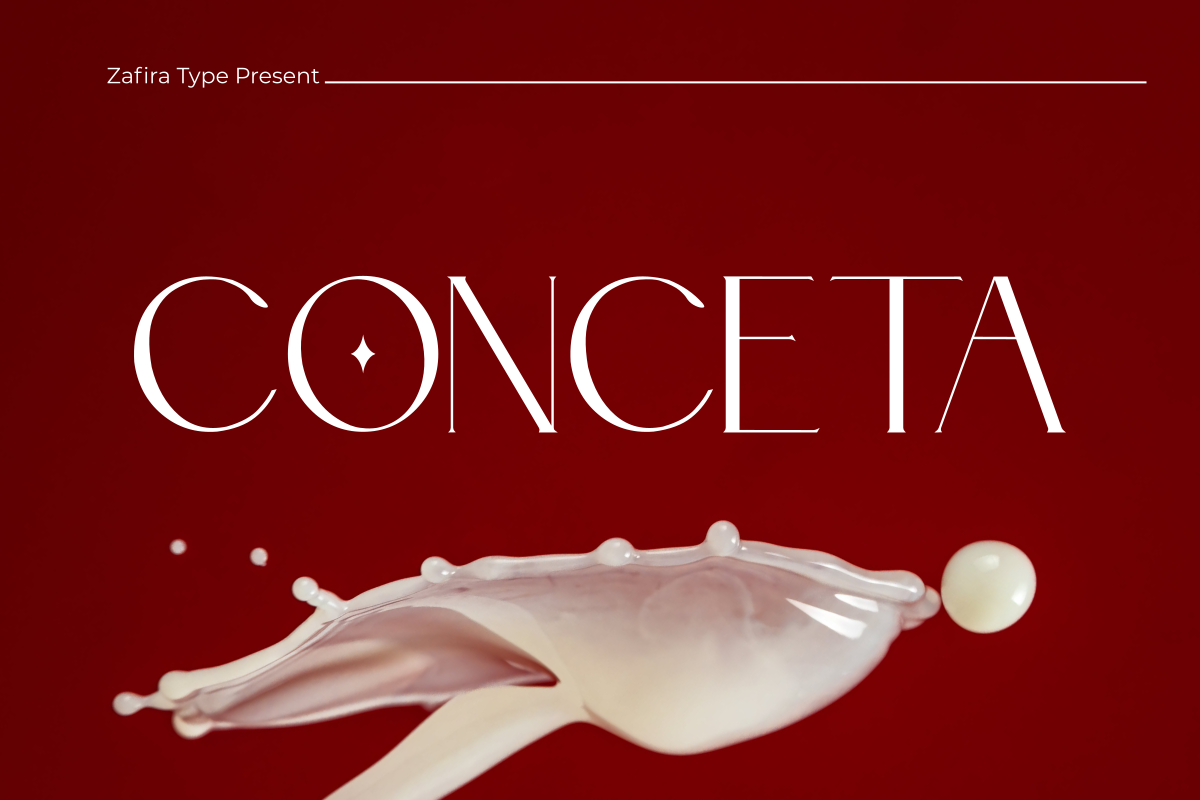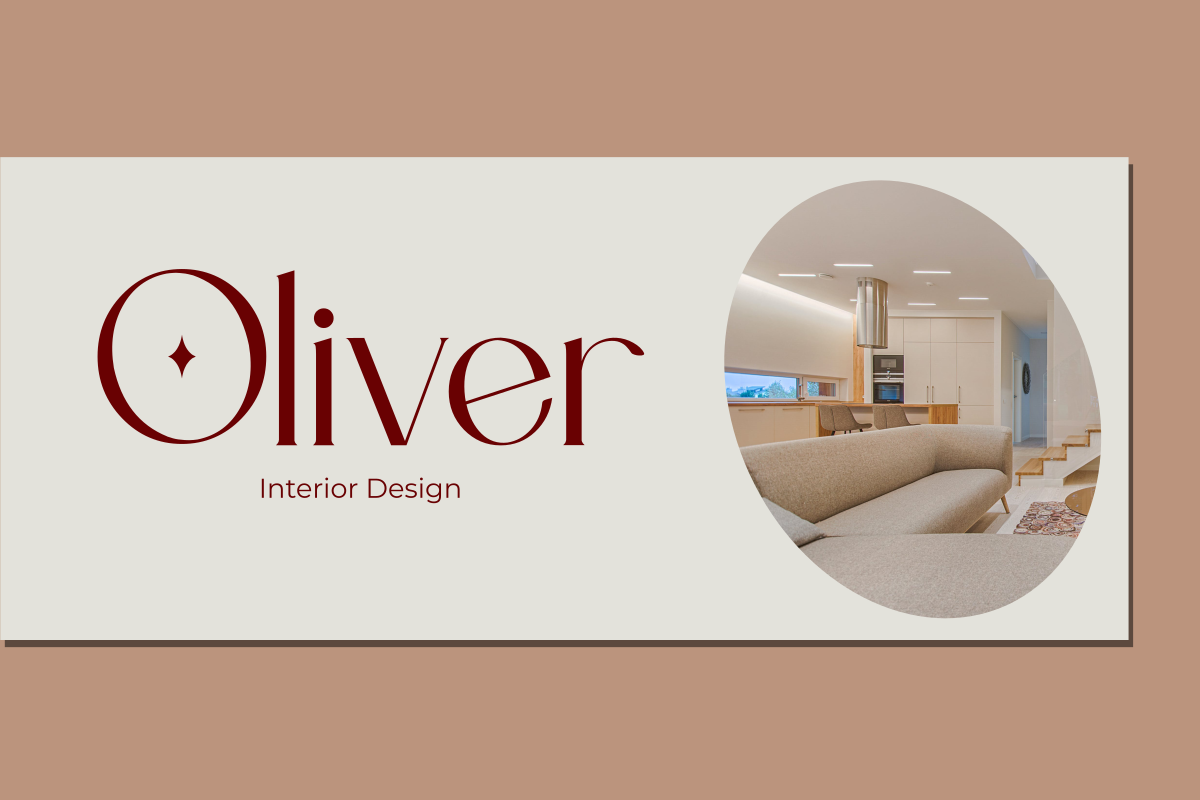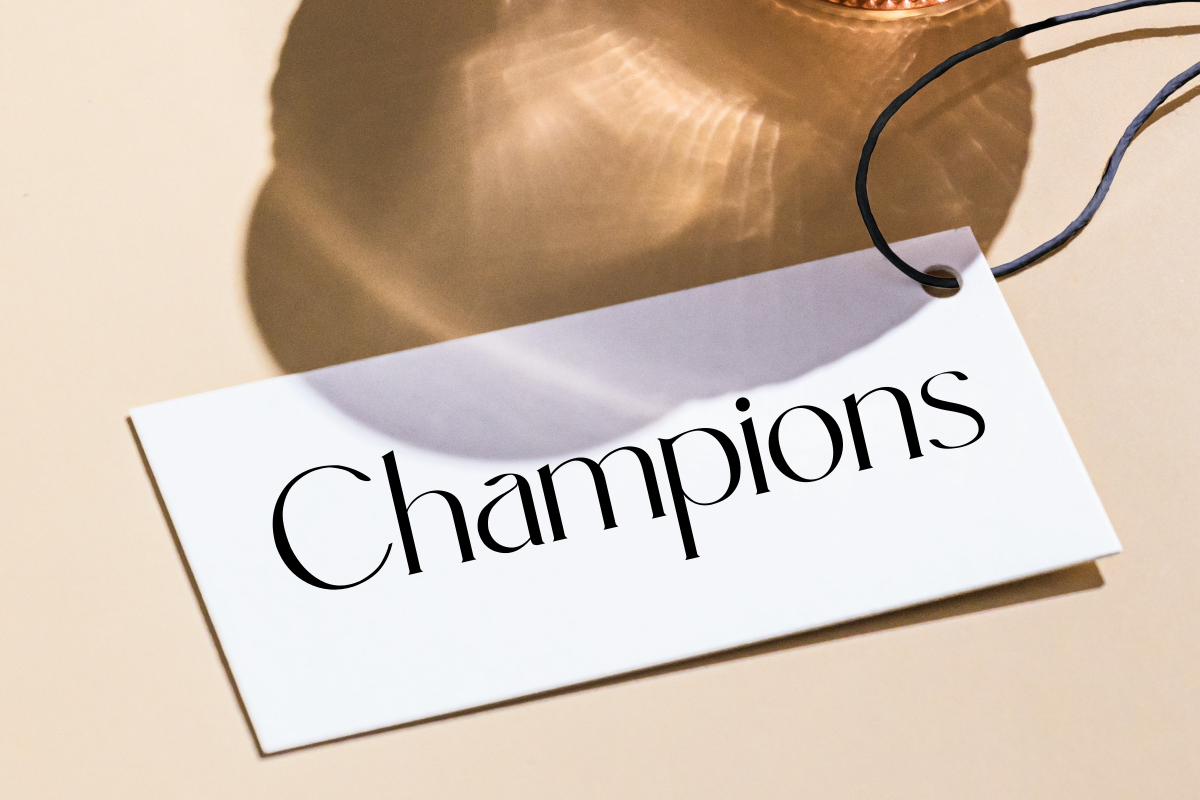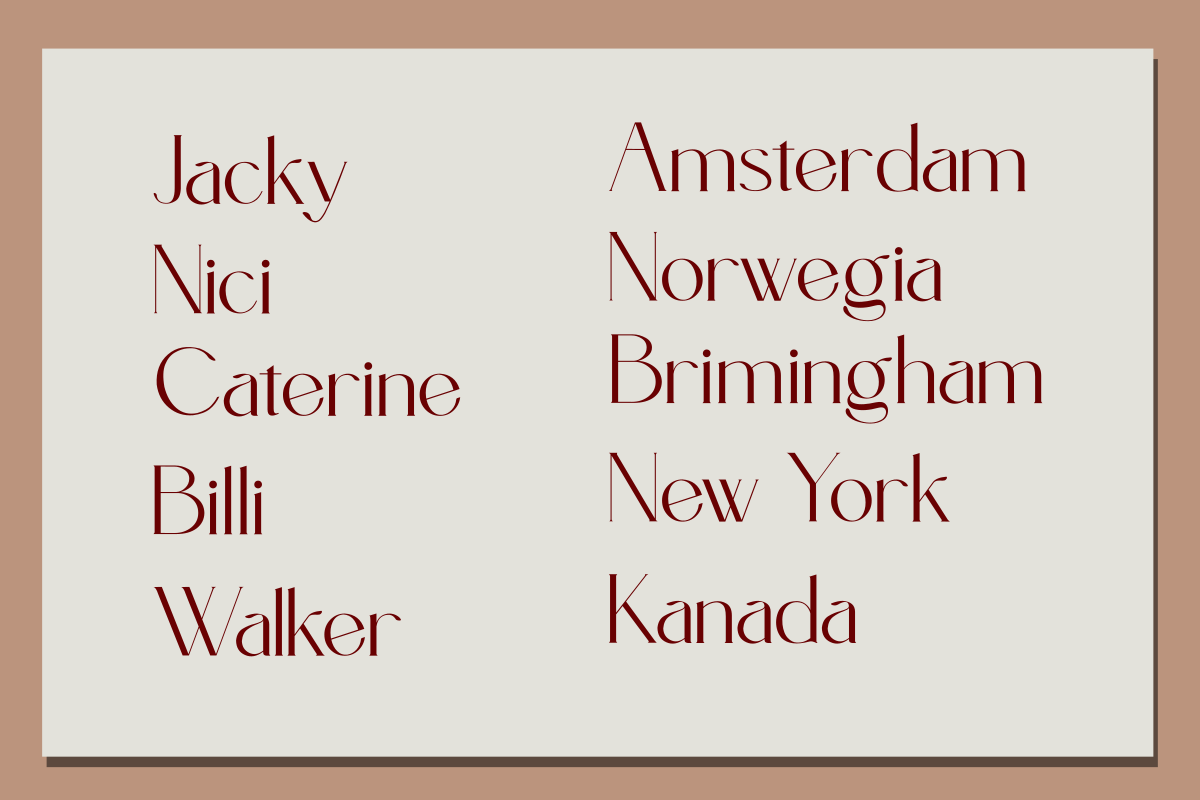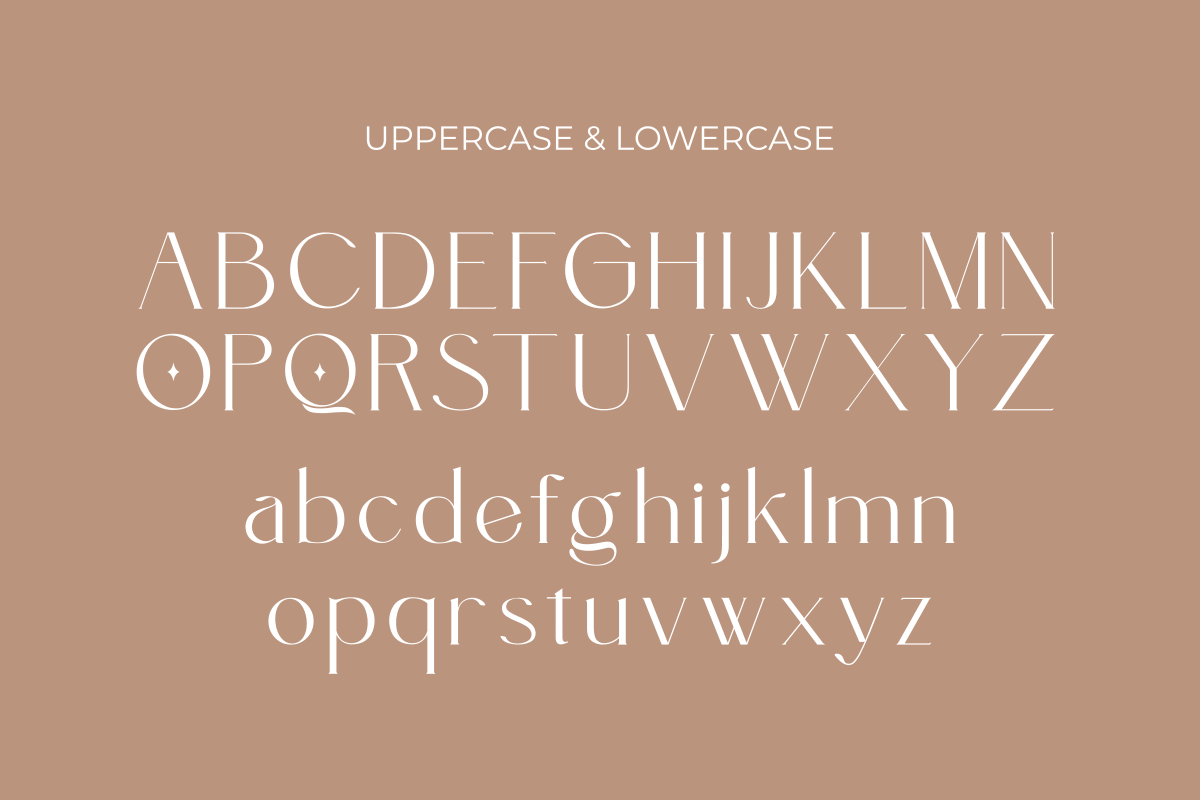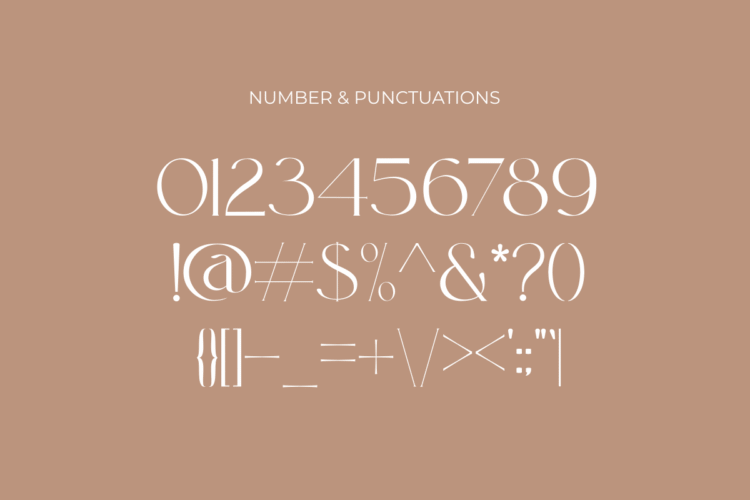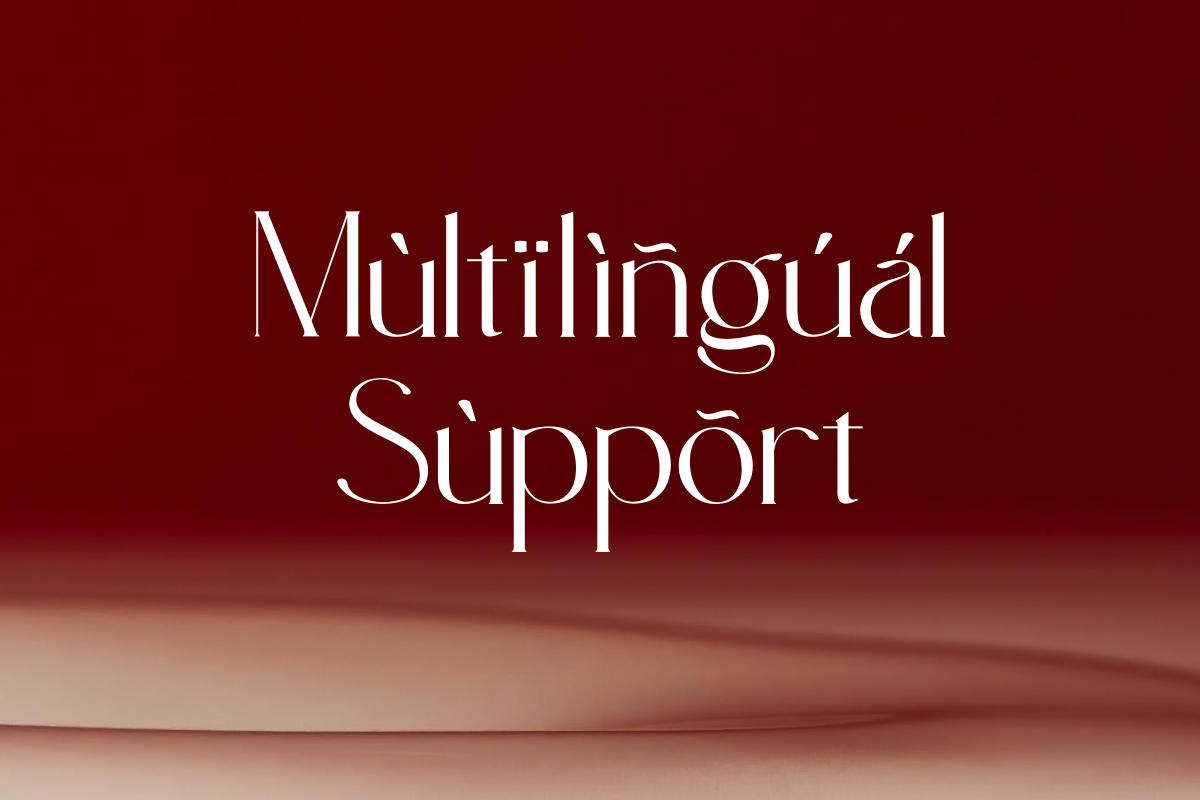
Conceta
Conceta is an elegant and modern serif, full of luxury for your design branding, styled thinly with harmonious curves to shape your design to perfection with an elegant touch. Conceta is created with precision to make it easy for you to create elegant and charming works; this font can encompass various design projects ranging from logos, brand identities, product branding, web displays, advertising pamphlets, etc.